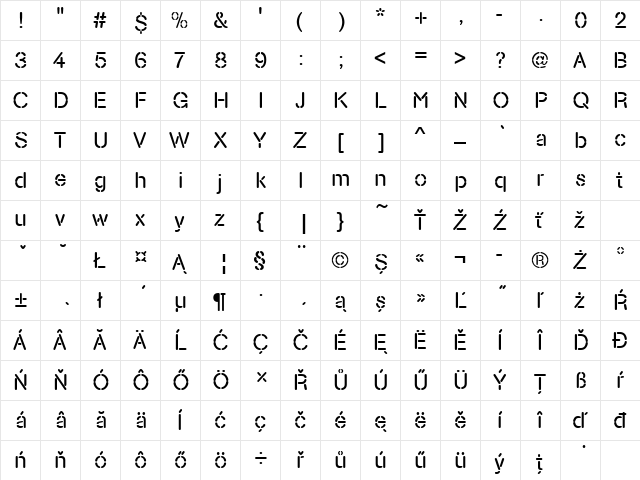
NimbusSteDEE Regular
Design Context for NimbusSteDEE Typeface
NimbusSteDEE is a composed and adaptable typeface that performs quietly and consistently across a wide range of design contexts.